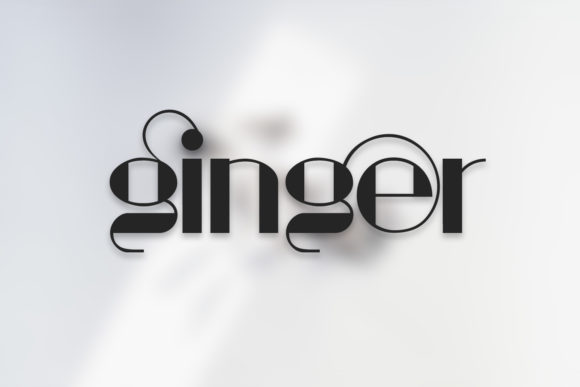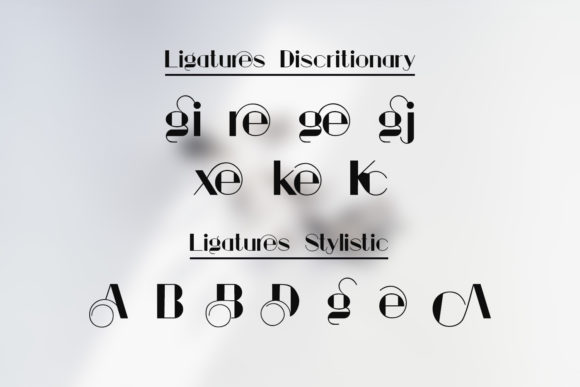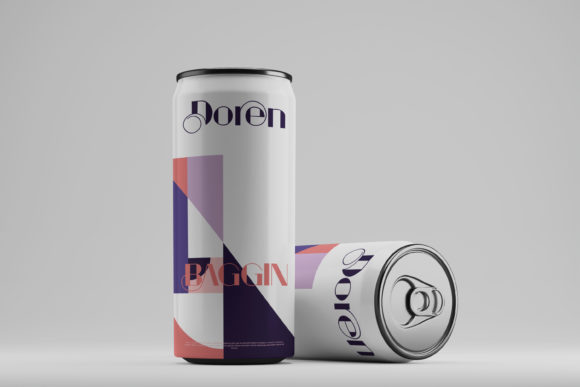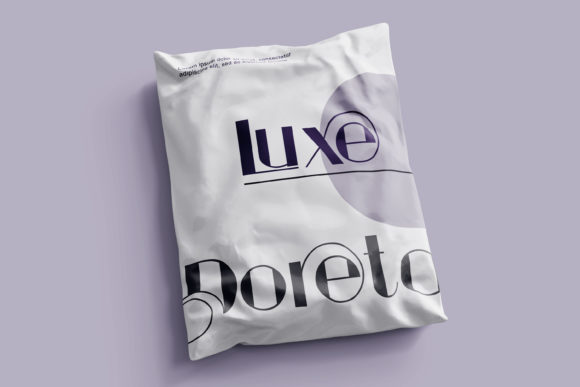
The Aspire Font: Elevate Your Designs with Elegance
I’ll never forget the time I was working on a client’s branding project, and I just couldn’t find the right font to tie everything together. The project required a modern touch, but everything I tried seemed either too bland or too over-the-top. That’s when I stumbled upon the Aspire font. It was like a breath of fresh air – elegant, distinct, and perfect for adding a touch of sophistication to any design.
A Personal Review of Aspire Font
As a designer, I’m always on the lookout for fonts that can help me create stunning visuals. Here’s my honest review of the Aspire font:
- ✨ Elegant and distinct design that’s perfect for display text
- ✅ Highly versatile and works well for various design projects, from web designs to business cards
- 💡 Supports OpenType features, glyphs, and stylistic alternates, giving you plenty of creative freedom
- 🎨 Beautifully crafted to add a modern touch to any design
While the Aspire font is fantastic, there are a few things to keep in mind:
- 🤔 May not be the best choice for body text due to its display font nature
- ⚠️ Some users may find the font a bit too ornate for certain projects
The Story Behind Aspire Font
The Aspire font was designed with the goal of creating a modern and elegant display font that could be used for a wide range of design projects. The designer aimed to craft a font that would be both sophisticated and versatile, with a unique character that would set it apart from other fonts.
Q: What is the Aspire font best used for?
A: The Aspire font is ideal for display text, such as headings, titles, and web designs. It’s perfect for projects that require a modern and elegant touch.
Q: Is the Aspire font suitable for body text?
A: While the Aspire font is beautiful, it’s not the best choice for body text due to its display font nature. It’s better suited for headings and titles.